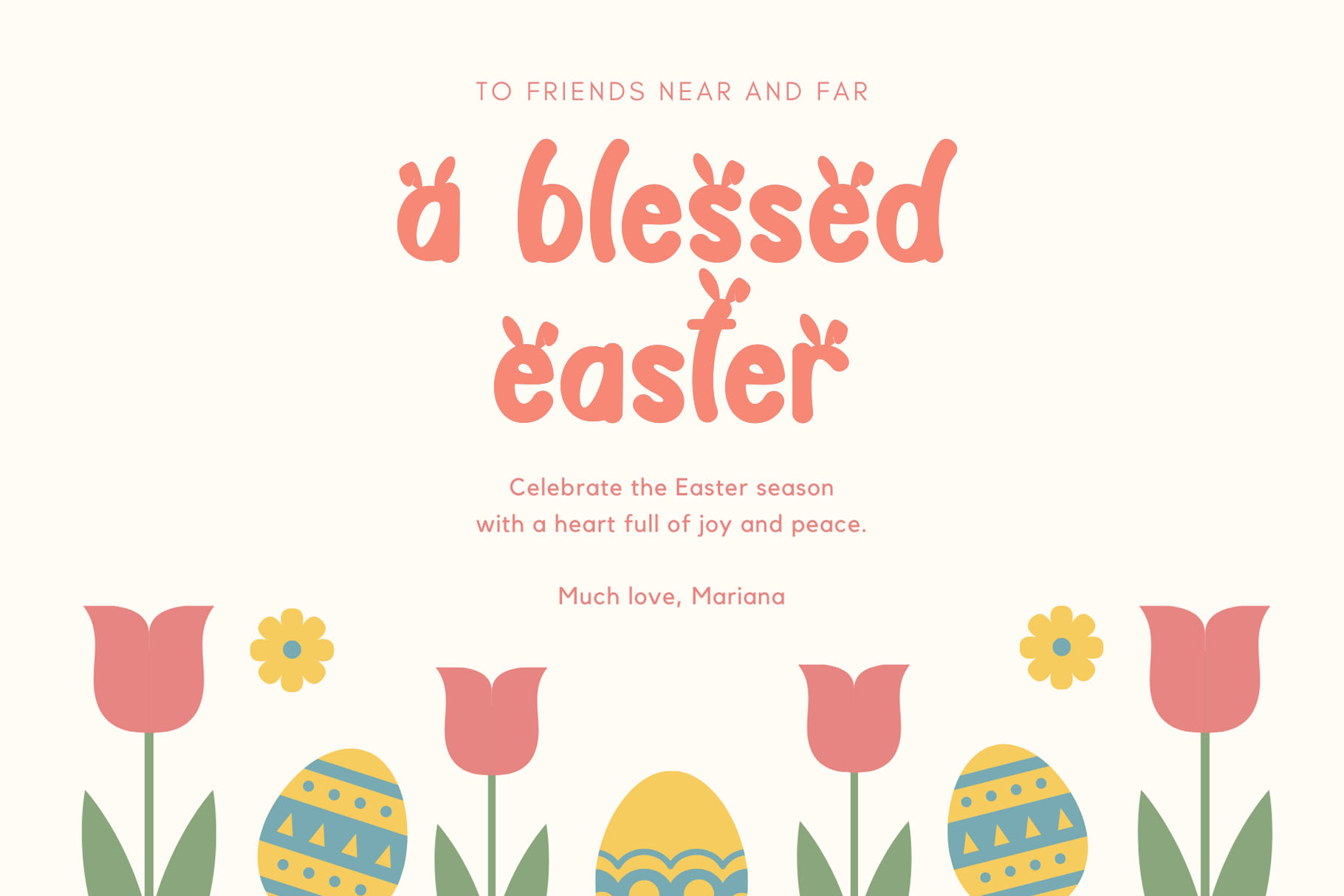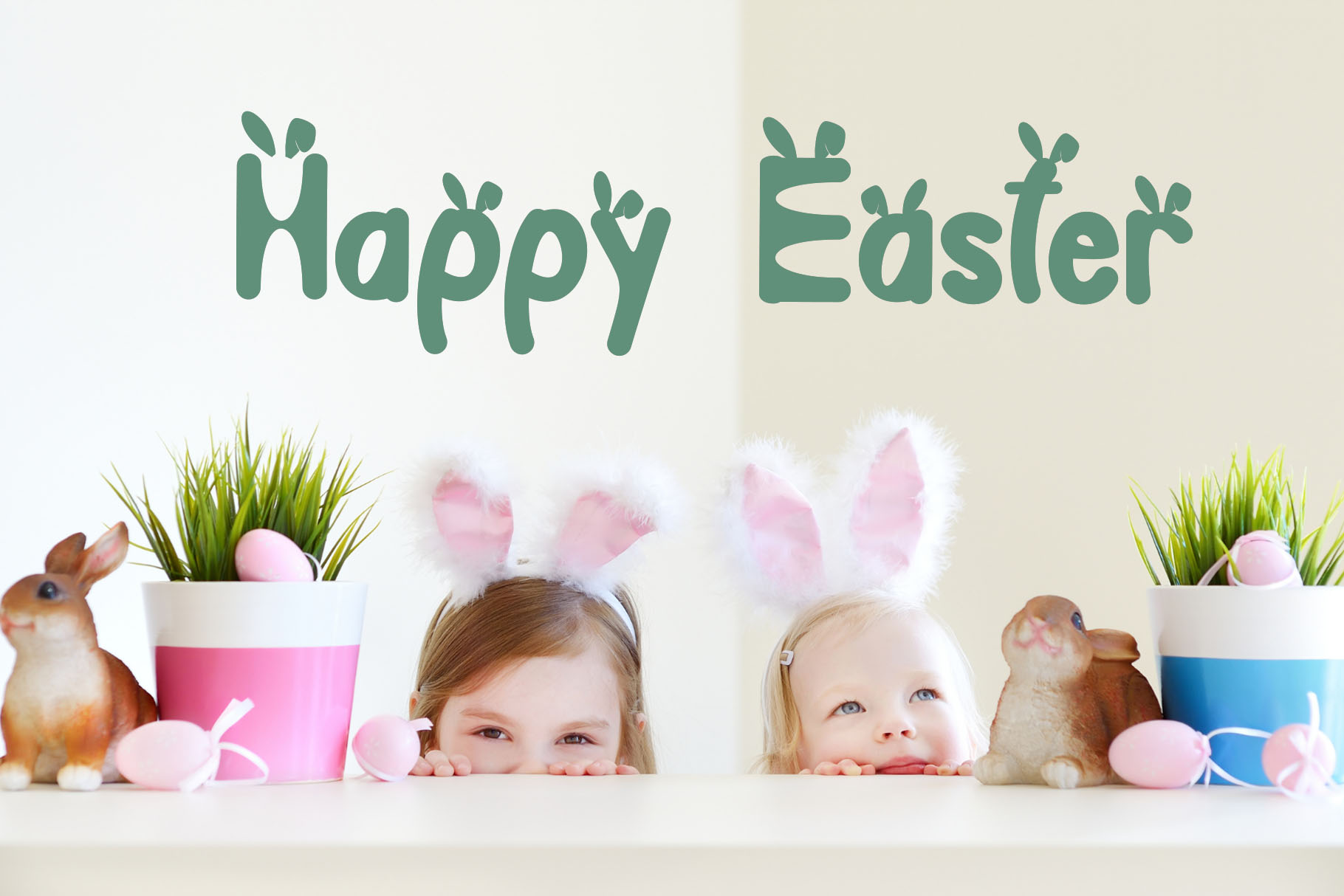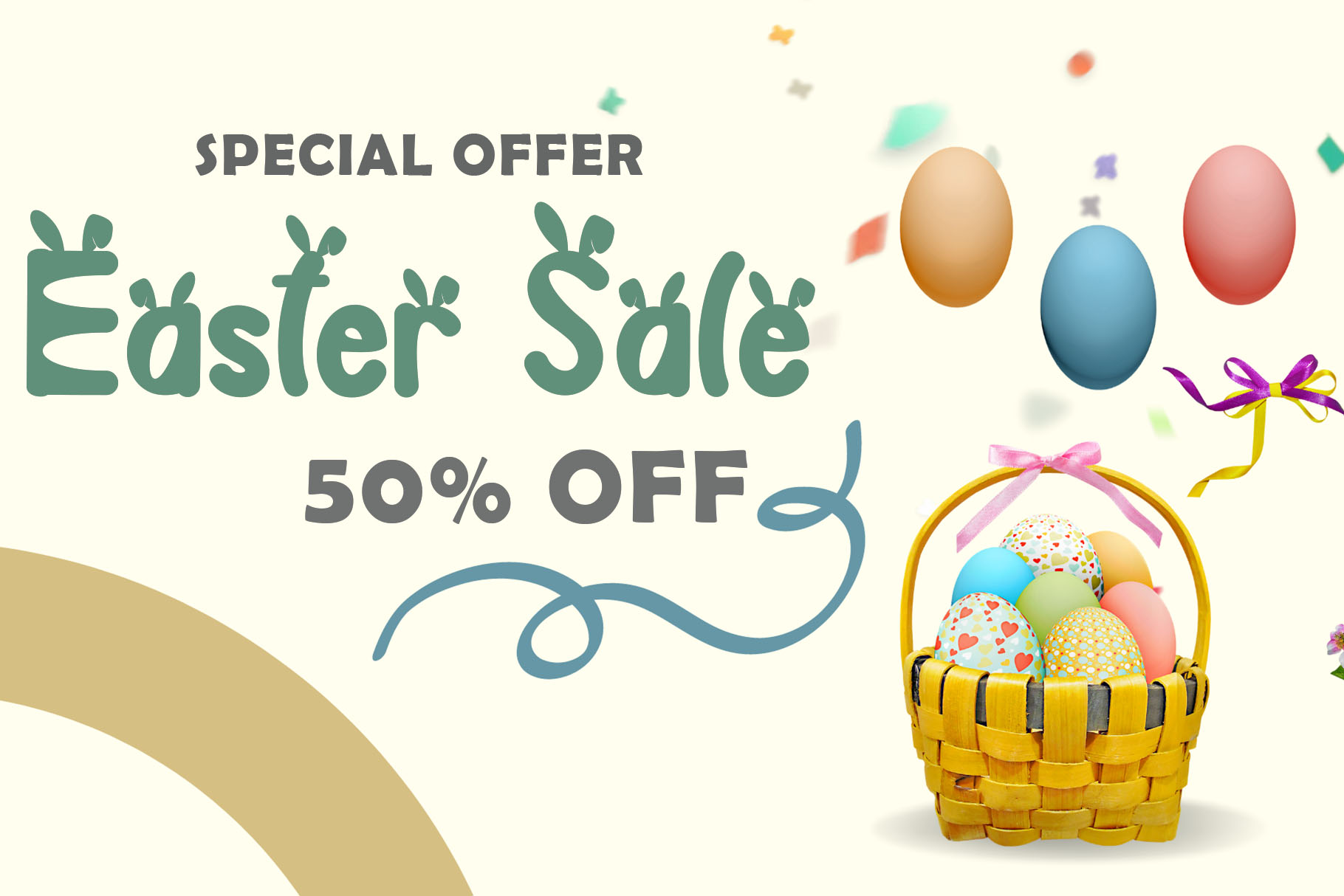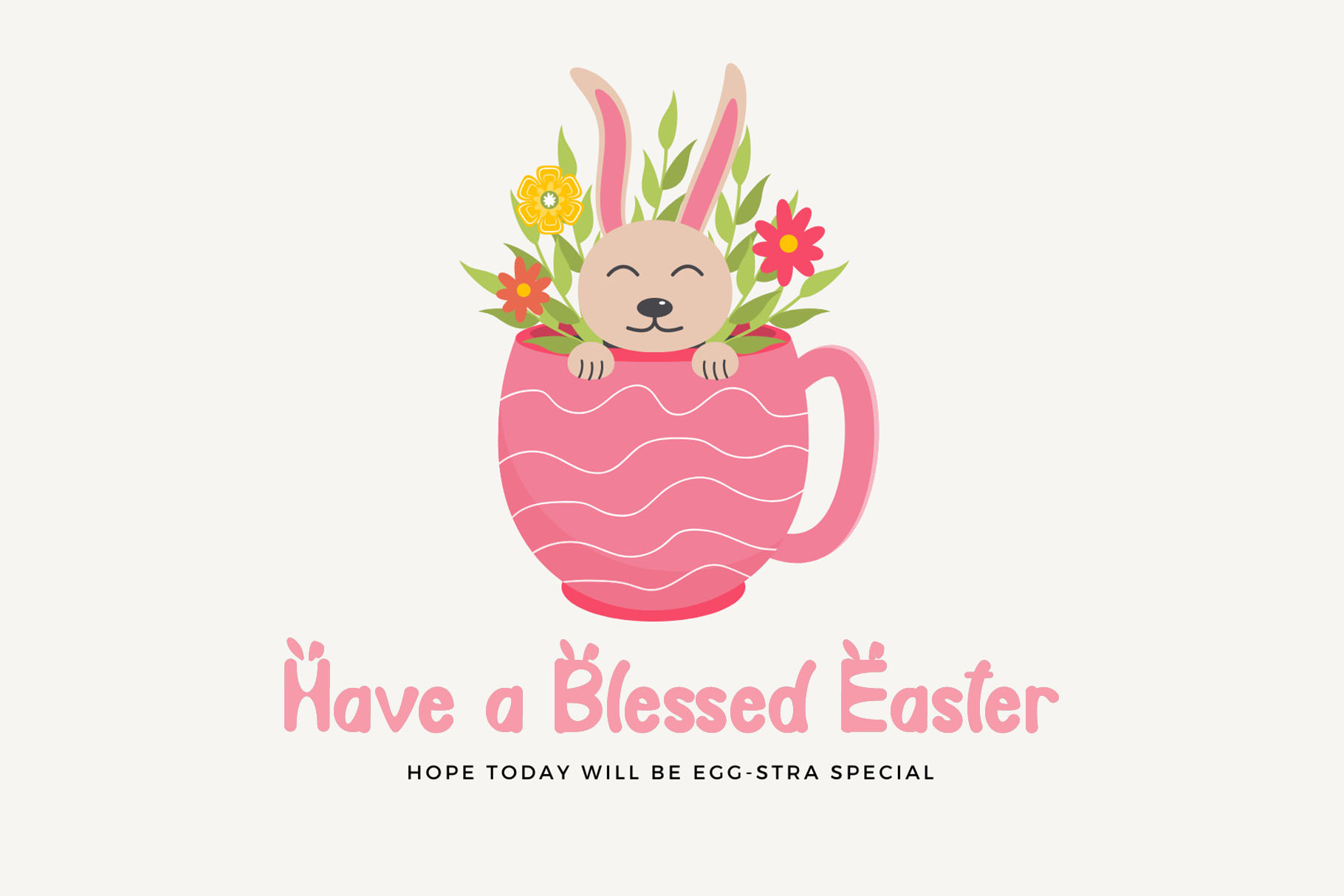
Hola Easter Font
Hola Easter Display Font
This is a cute and friendly display font. It features a unique signature with rabbit ears on its characters. This font is PUA encoded which means you can access all of the glyphs and swashes with ease.